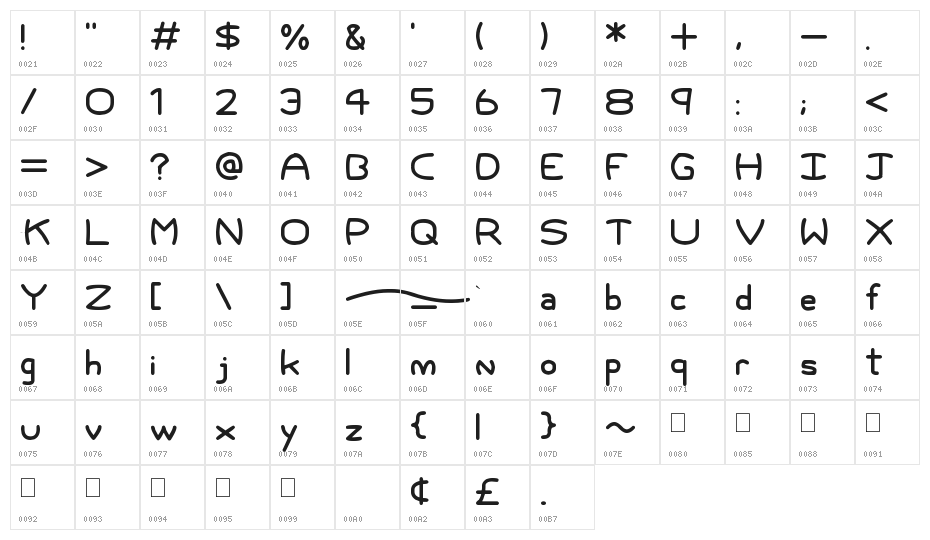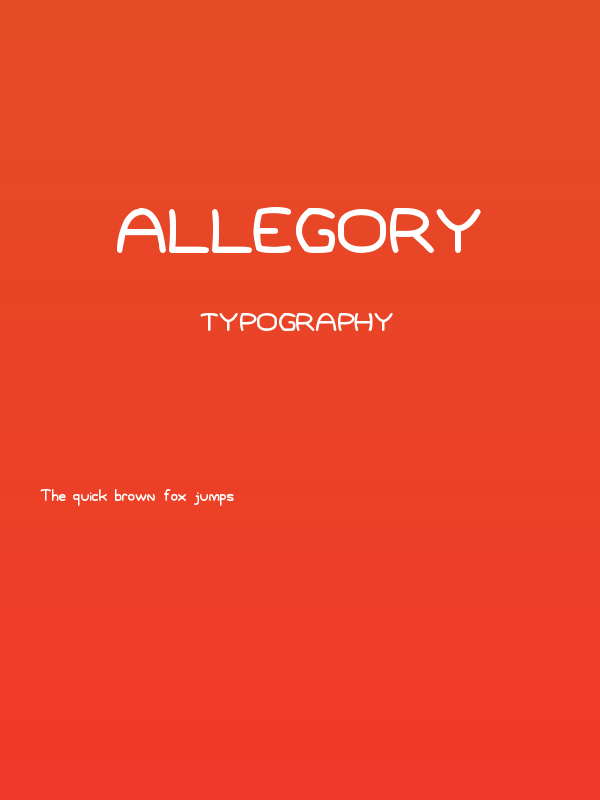
Allegory Font
Allegory Description
This font features a playful and rounded style, characterized by its smooth curves and friendly appearance. The letters are evenly spaced with a consistent stroke width, giving it a clean and approachable look. The uppercase and lowercase letters maintain a uniform height, contributing to its balanced design. The numerals and special characters are crafted with the same rounded edges, ensuring cohesion across all elements. This font's simplicity and warmth make it versatile for various design applications.
| Proposed Projects | Ideal for children's books, playful branding, casual invitations, and educational materials. |